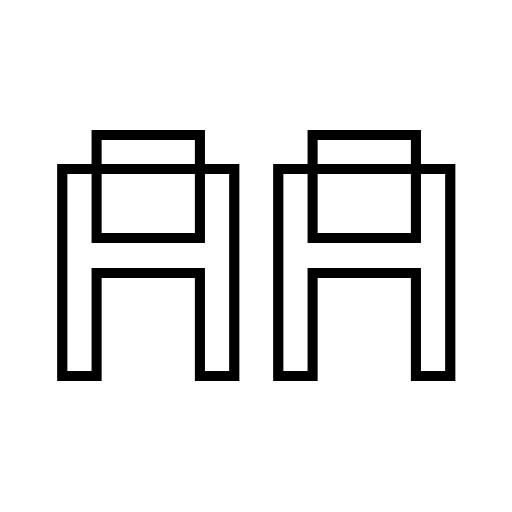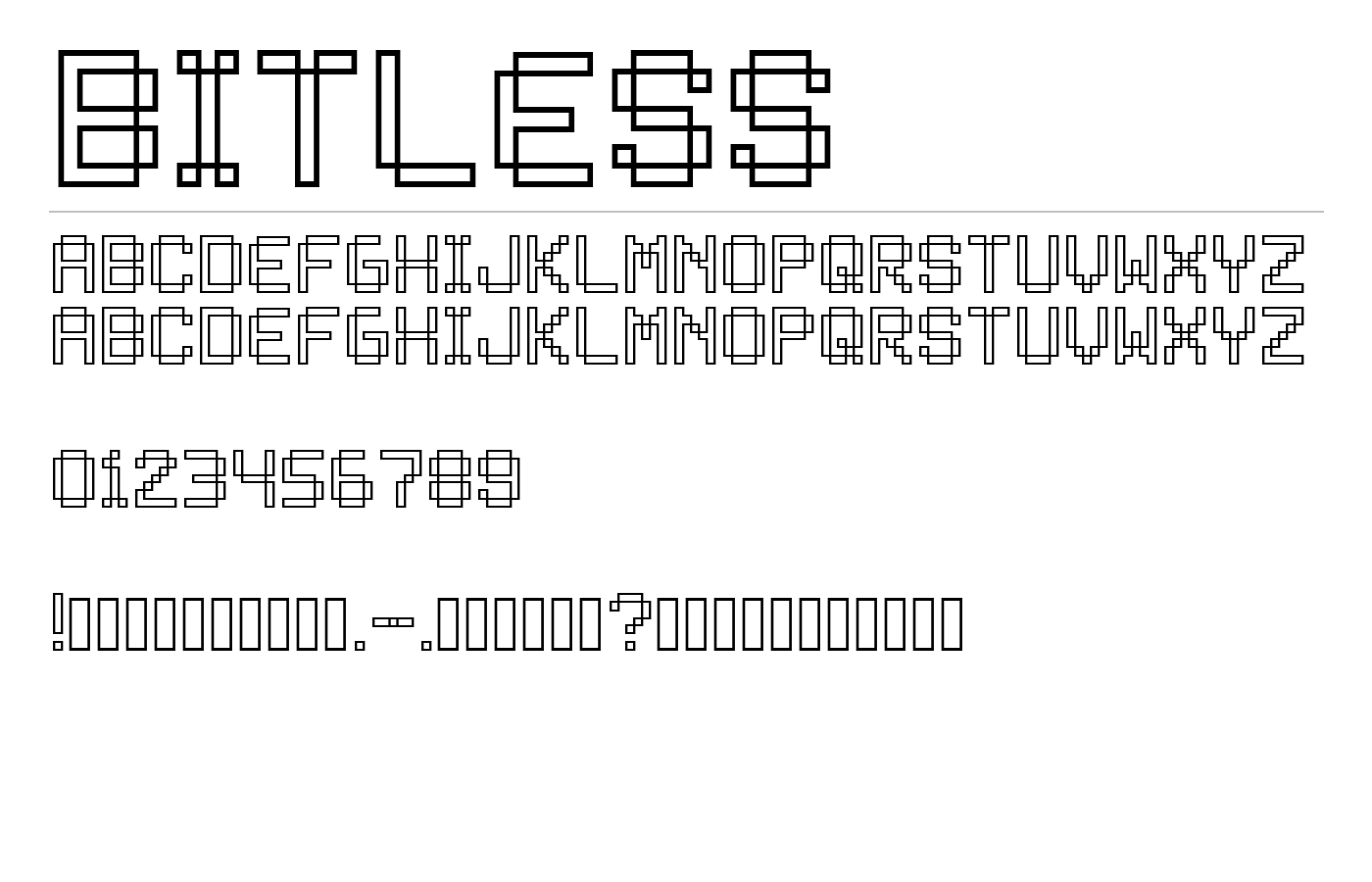
Bitless is a distinctive, geometric sans serif font with a modern, tech-inspired style. Its narrow, angular letterforms are constructed from fine, uniform lines that create a digital, almost pixelated effect, making it ideal for futuristic or digital-themed designs, logos, and headlines seeking a unique, minimalist appeal.
Bitless Font
About Bitless Font